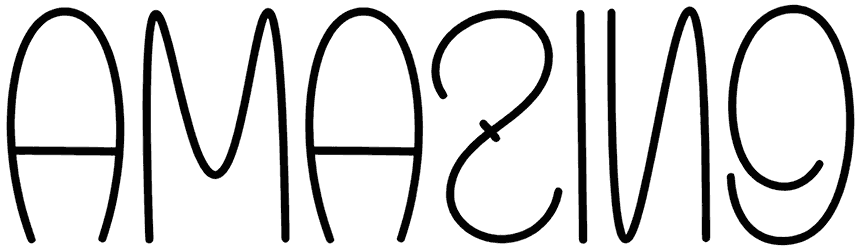
Tangerine Mangos is a cute doodle font that was designed to look like hand-drawn text. This type of style makes your context look informal in the readers’ eyes and this feature can be used for so many different projects like cartoons, kids’ and comic books, flyers, etc.
This font offers you the same characters for both uppercase and lowercase of the alphabets, you also get numbers and punctuation marks from this font.